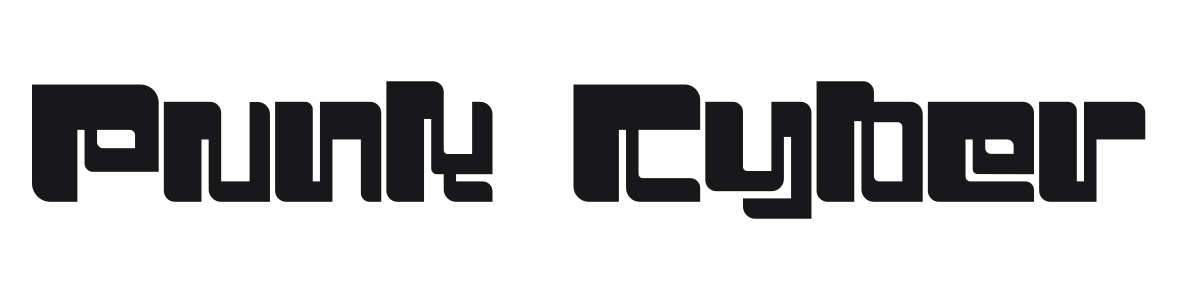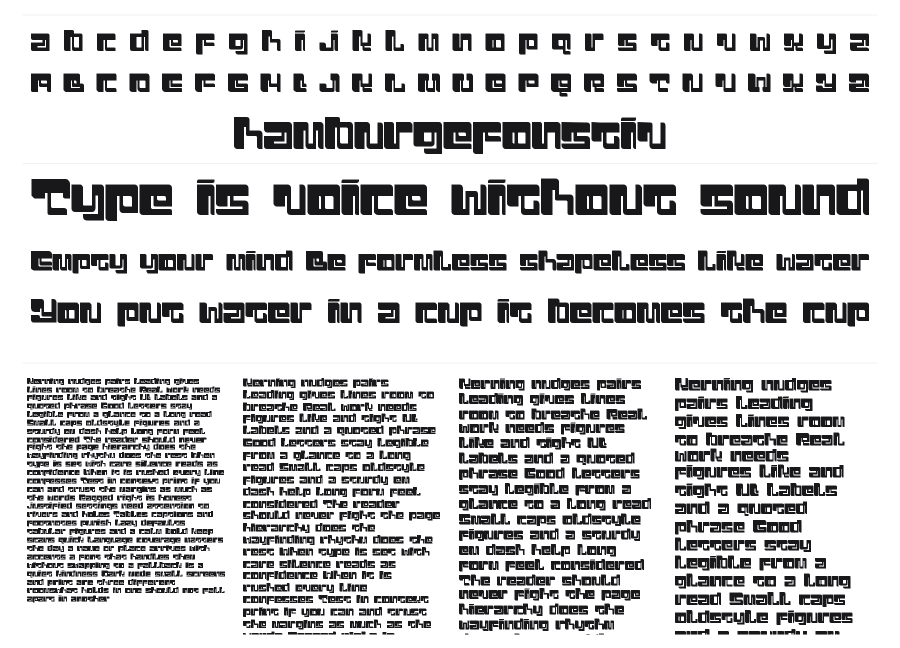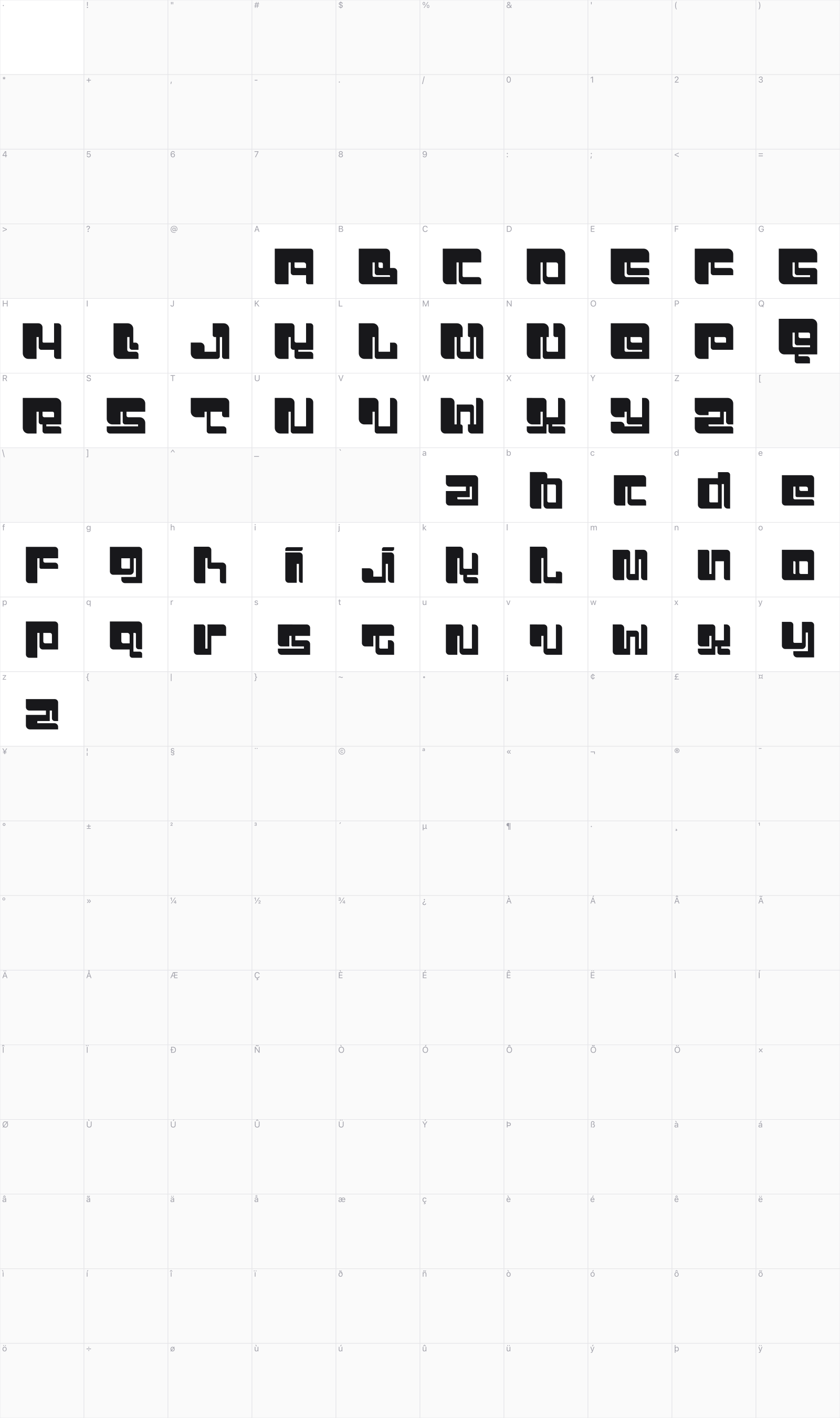
Punk Cyber
Punk CyberLiner is a heavy modular square sans built from thick rectangular strokes with notched cutouts at key corners, giving each character a fragmented, circuit-board quality. The uniform weight and grid-based construction channel cyberpunk and industrial aesthetics without leaning on cliché. Works hard at large sizes for gaming titles, band logos, or any project that needs a raw, aggressive edge.